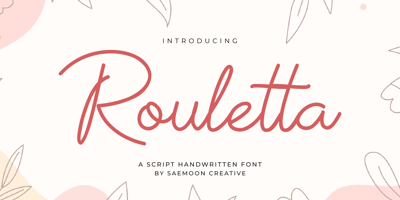
Roulleta
Roulleta font
Roulleta Font Family was designed by Sapto Susilo and published by Saemoon Creative. Roulleta contains 1 styles and family package options. Rouletta is an elegant and natural script that can bring authenticity and sophistication to your projects. With perfect curves and natural letter shapes, enhance your design with the charming Rouletta font, ideal for branding, invitations, logos, or any creative endeavor that requires a natural and elegant touch.